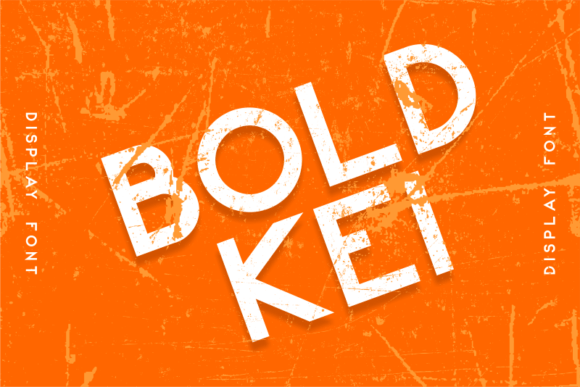
Introduction to Bold Kei Font
Bold Kei is a casual, fun display font, created by using a brush pen.
Clean and a little bit quirky, this font is the perfect fit for all of your logos, branding, social media, and crafty DIY projects .
Key Features of Bold Kei Font
Why Choose Bold Kei Font?
Bold Kei Font offers exceptional quality and versatility, making it a valuable addition to your design toolkit. Whether you’re creating for personal projects or commercial use, Bold Kei Font delivers professional results.